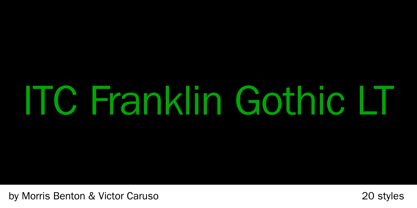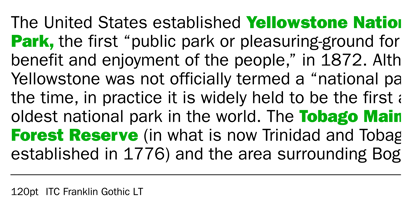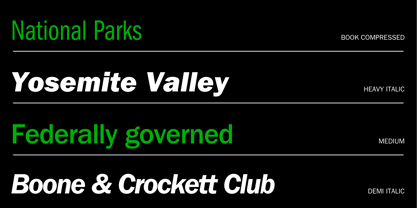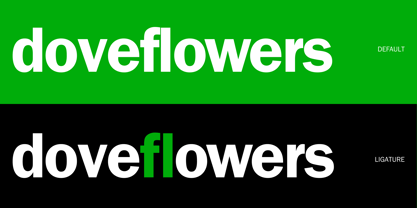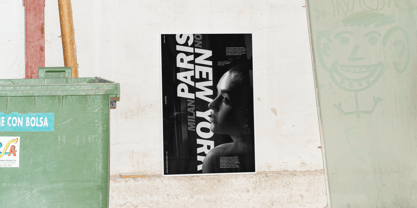
ITC Franklin Gothic LT™
The ITC Franklin Gothic LT Font Family was designed by Victor Caruso, Morris Fuller Benton and published by ITC. ITC Franklin Gothic LT contains 20 styles and family package options. More about this family
Franklin Gothic was designed between 1903 and 1912 by Morris Fuller Benton for the American Type Founders Company. The font serves as the American Grotesk prototype. It was named after Benjamin Franklin. Even today, Franklin Gothic remains one of the most widely used sans serif typefaces. The robust character of the font gives text a modern feel. It is widely used in newspapers and advertising and is frequently seen in posters, placards and other material where space is restricted.